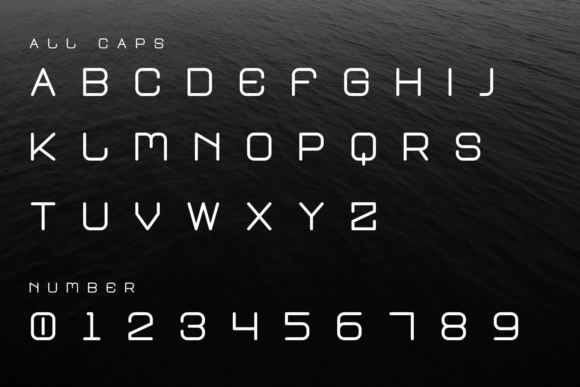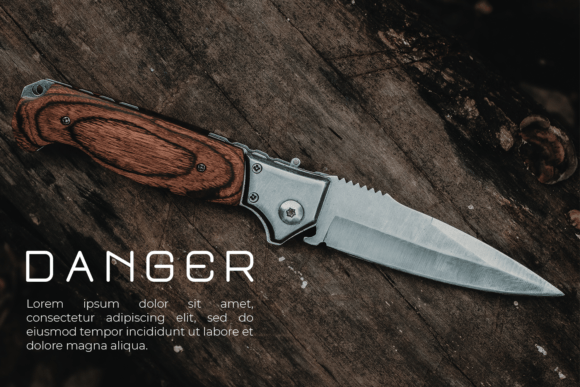
Introducing Codegun Font: The Ultimate Choice for Modern Designs
In the world of typography, fonts play a crucial role in making or breaking a design. With the ever-evolving trends in graphic design, it’s essential to stay updated with the latest and greatest fonts that can elevate your creations. One such font that has been making waves in the design community is Codegun Font. In this article, we’ll dive into the world of Codegun Font, exploring its features, benefits, and uses, and why it’s a must-have for designers and crafters.
What is Codegun Font?
Codegun Font is a trendy, all-caps sans serif font that exudes a sense of modernity and freshness. Its clean lines, precise curves, and geometric shapes make it a perfect choice for designs that require a bold and edgy look. Codegun Font is designed to make a statement, and its unique style sets it apart from other fonts in the market.
Key Features of Codegun Font
- All-caps design: Codegun Font is an all-caps font, making it perfect for headings, titles, and emphasis text.
- Sans serif: The font’s sans serif design gives it a clean and minimalist look, making it suitable for modern designs.
- Geometric shapes: The font’s geometric shapes and precise curves make it a great choice for designs that require a sense of precision and technology.
- Trendy and fresh: Codegun Font’s unique design makes it a great choice for designers looking to add a touch of modernity to their creations.
Benefits of Using Codegun Font
So, why should you choose Codegun Font for your next design project? Here are some benefits of using Codegun Font:
- Elevate your designs: Codegun Font has the potential to elevate any creation, making it perfect for designers looking to add a touch of sophistication to their designs.
- Versatile: The font’s versatility makes it suitable for a wide range of design projects, from logos and branding to posters and social media graphics.
- Easy to read: Despite its bold and edgy design, Codegun Font is easy to read, making it perfect for designs that require a clear and concise message.
- Unique style: Codegun Font’s unique style sets it apart from other fonts in the market, making it a great choice for designers looking to create something truly original.
Uses of Codegun Font
Codegun Font is a versatile font that can be used for a wide range of design projects, including:
- Logos and branding: Codegun Font’s bold and edgy design makes it perfect for logos and branding projects that require a modern and sophisticated look.
- Posters and flyers: The font’s clean lines and precise curves make it suitable for posters and flyers that require a clear and concise message.
- Social media graphics: Codegun Font’s unique style makes it a great choice for social media graphics that require a touch of modernity and freshness.
- Web design: The font’s sans serif design and geometric shapes make it suitable for web design projects that require a clean and minimalist look.
In conclusion, Codegun Font is a trendy, all-caps sans serif font that has the potential to elevate any creation. Its unique style, versatility, and ease of use make it a must-have for designers and crafters. Whether you’re working on a logo, poster, social media graphic, or web design project, Codegun Font is a great choice for adding a touch of modernity and sophistication to your designs.